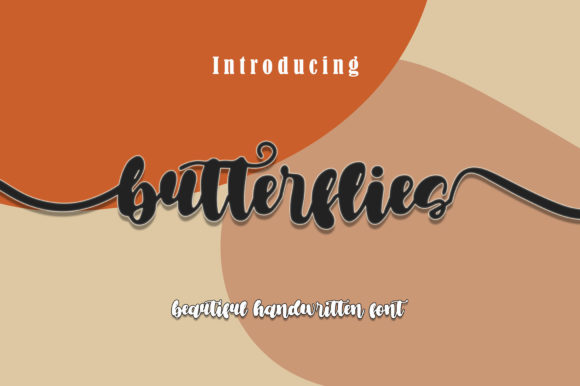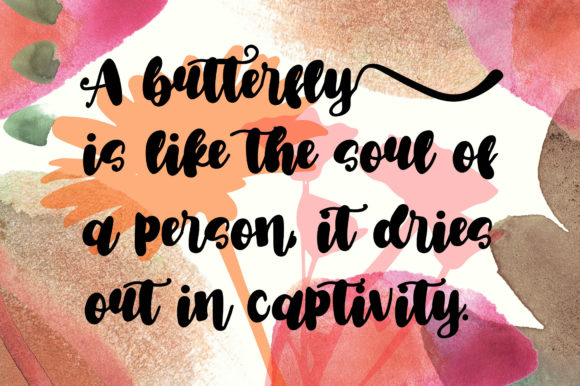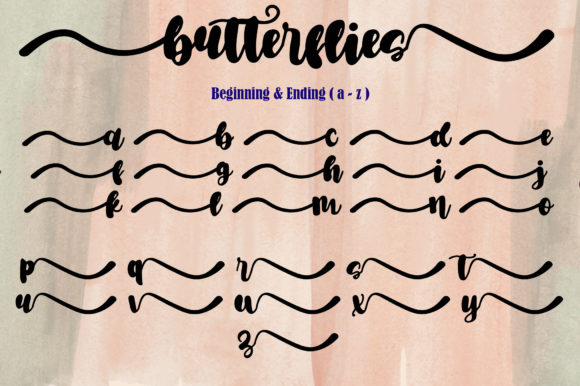
About Butterflies Font
Butterflies is a stunning and intricately designed script font that exudes elegance and beauty. Crafted with meticulous attention to detail, this font is a wonderful addition to your font library, capable of enhancing any creative project.
The flowing and graceful letterforms of Butterflies are meticulously crafted, showcasing the dedication put into its design. Each stroke and curve is carefully shaped to create a harmonious and visually appealing script. Whether you’re designing wedding invitations, logos, branding materials, or any other creative work, Butterflies adds a touch of sophistication and charm.
One of the notable features of Butterflies is its high level of detail. The intricate design elements, such as swashes and ligatures, further enhance the beauty and versatility of this font. With its PUA encoding, accessing these glyphs and swashes is a breeze, allowing you to effortlessly add decorative elements and flourishes to your designs.
The versatility of Butterflies is another aspect that makes it a valuable asset. Regardless of the topic or theme, this font seamlessly adapts to various projects, bringing elegance and refinement to your designs. Whether you’re creating elegant wedding stationery, romantic quotes, or sophisticated branding, Butterflies complements a wide range of styles and adds a touch of luxury.
Furthermore, Butterflies excels in legibility while maintaining its decorative qualities. The balance between readability and ornamental details ensures that your message is effectively conveyed, making this font suitable for both large and small sizes. Whether it’s printed materials or digital designs, Butterflies shines in its clarity and readability.
In summary, Butterflies is a dazzling and meticulously crafted script font that adds elegance and beauty to any creative project. With its high level of detail, PUA encoding for easy access to glyphs and swashes, and versatile design, this font is a wonderful asset to your font library. Enhance your designs with the sophistication and charm of Butterflies, whether it’s for weddings, branding, or any other creative endeavor.